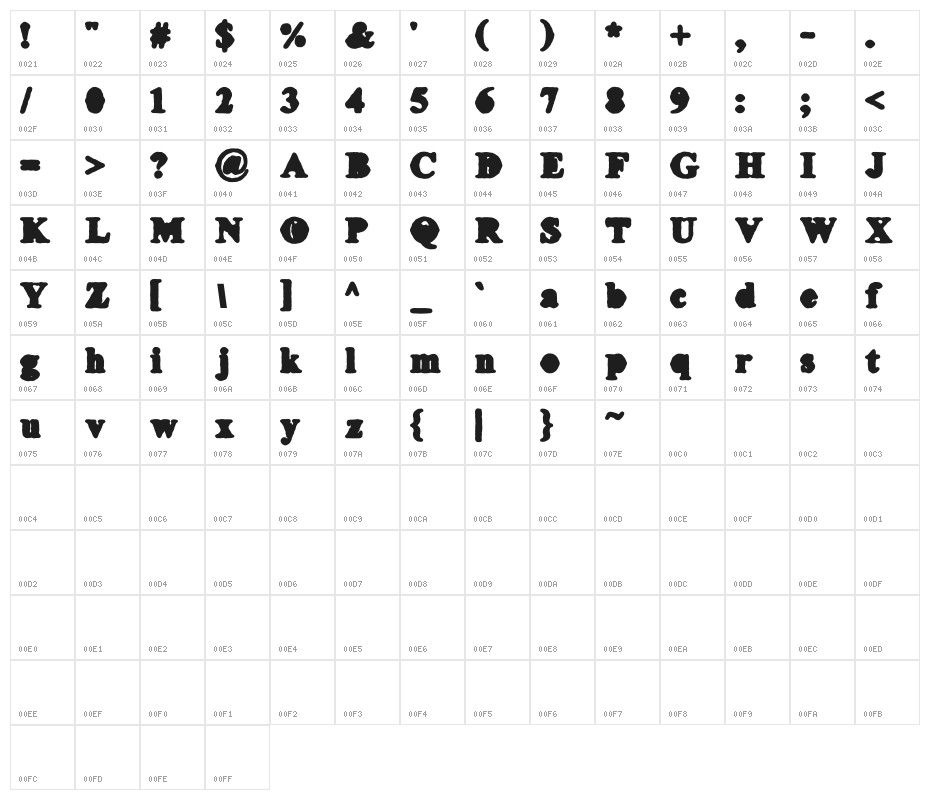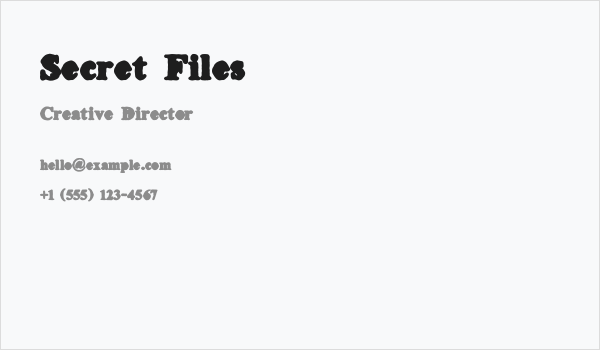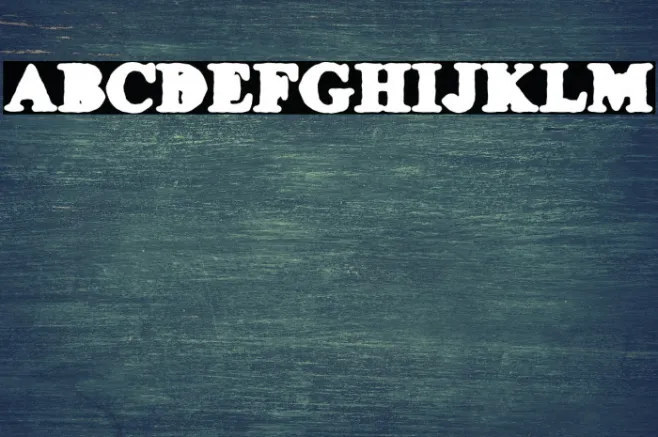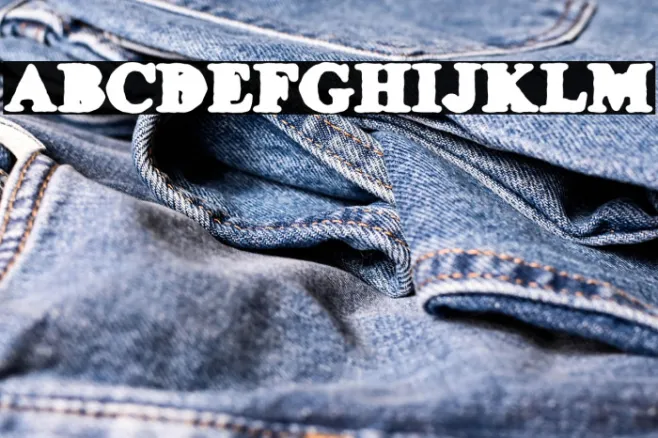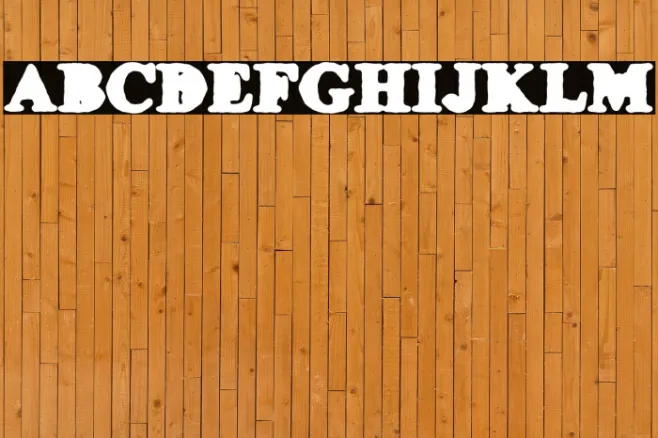
Secret Files Font
Secret Files Description
This font features a bold and striking design with a distinctly vintage and decorative style. The characters are heavily weighted with thick strokes, creating a strong visual impact. The edges are slightly irregular, giving it a handcrafted, organic feel. The uppercase and lowercase letters maintain a consistent style, with rounded forms and a playful yet robust appearance. The numbers and special characters follow the same aesthetic, ensuring uniformity across all glyphs. This font's unique style makes it stand out, perfect for projects that require a bold statement.
| Overall Style | Vintage, Decorative |
| Proposed Projects | Ideal for posters, logos, branding, and any design needing a vintage or handcrafted look. |